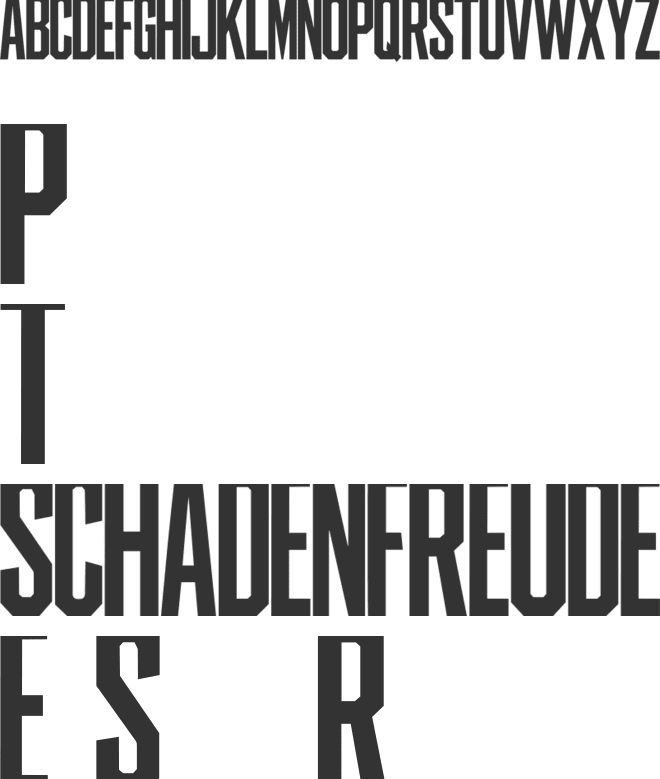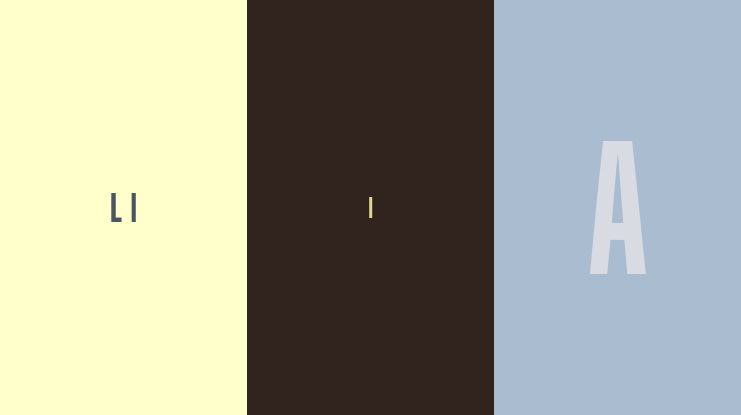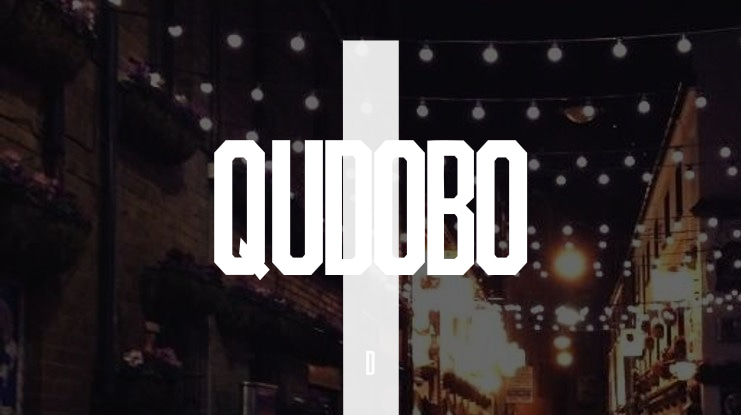
QUDOBO Font
🎨 Font Name: QUDOBO by Minimalist Art Studio
🎨 Font Description: Voltage is a tall, condensed sans serif font in Regular and Italic styles—perfect for bold headlines, modern branding, tech interfaces, and minimalist layouts; free for subscribers and built to energize your design flow.
✔ Alternates, stylistic sets & ligatures